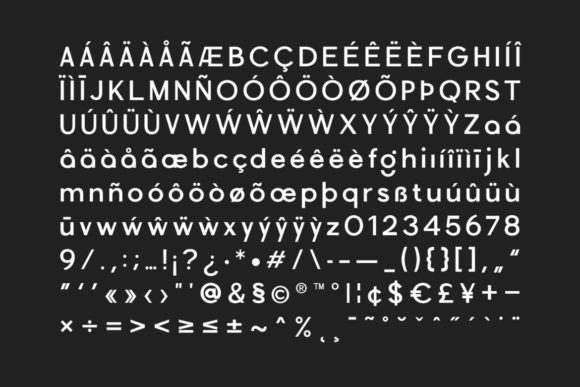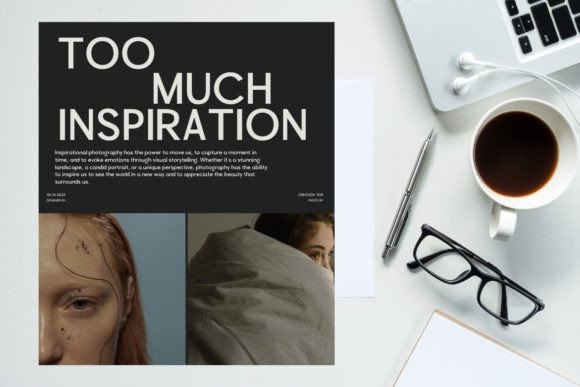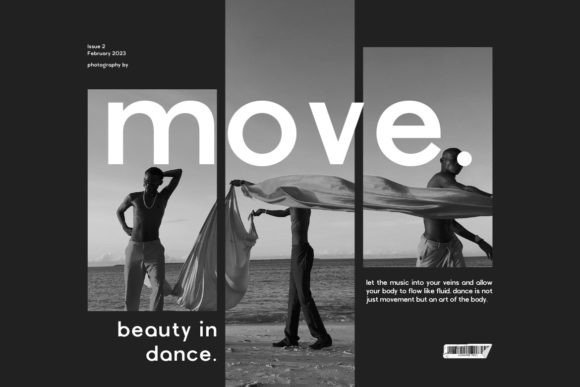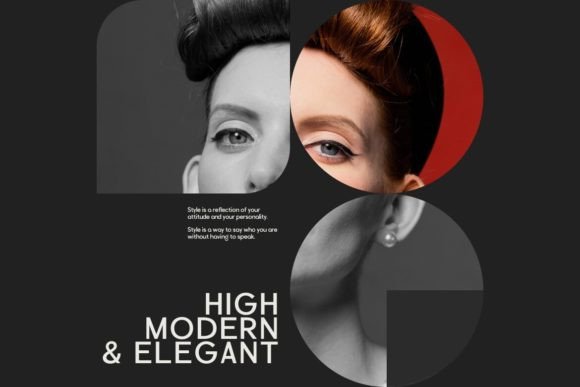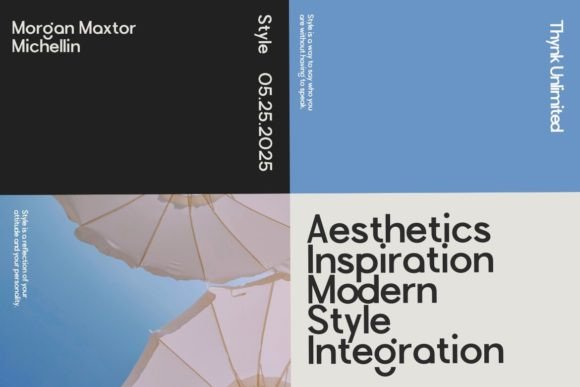
Introduction to Legian Font
Introducing our new Legian, modern sans serif font with elegant style this is perfect for branding, logos, invitations, magazines, product packaging, and more.
It doesnโt only look sophisticated but also charming .
Key Features of Legian Font
Why Choose Legian Font?
Legian Font offers exceptional quality and versatility, making it a valuable addition to your design toolkit. Whether you’re creating for personal projects or commercial use, Legian Font delivers professional results.